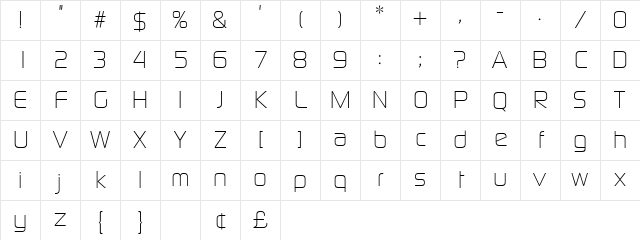
Complete Bazouk Light SSi Light glyph index. Displaying only characters natively supported by Bazouk Light SSi Light font.
Bazouk Light SSi is a composed and adaptable typeface that performs quietly and consistently across a wide range of design contexts. Its slender proportions lend an understated elegance to any composition.